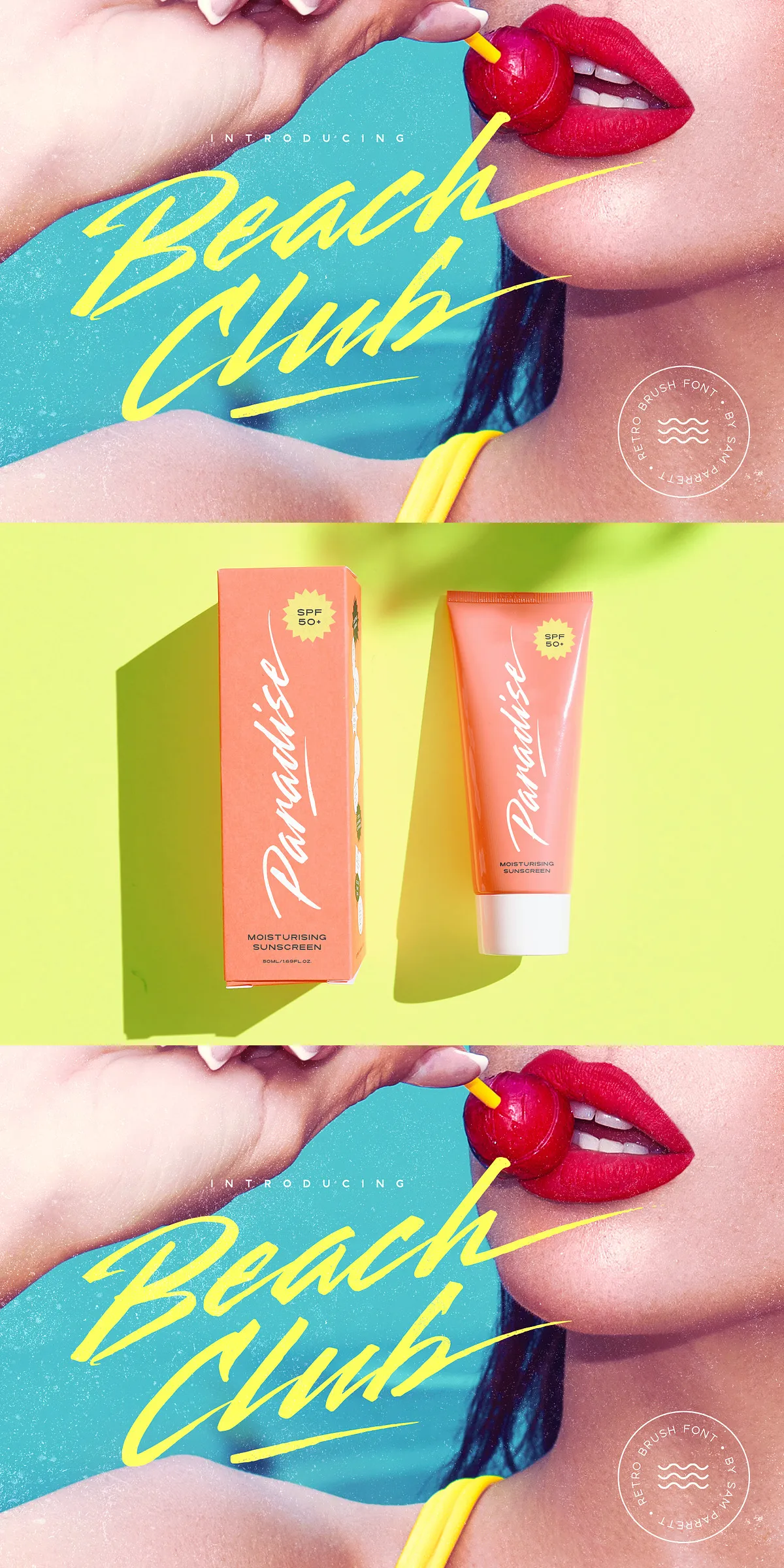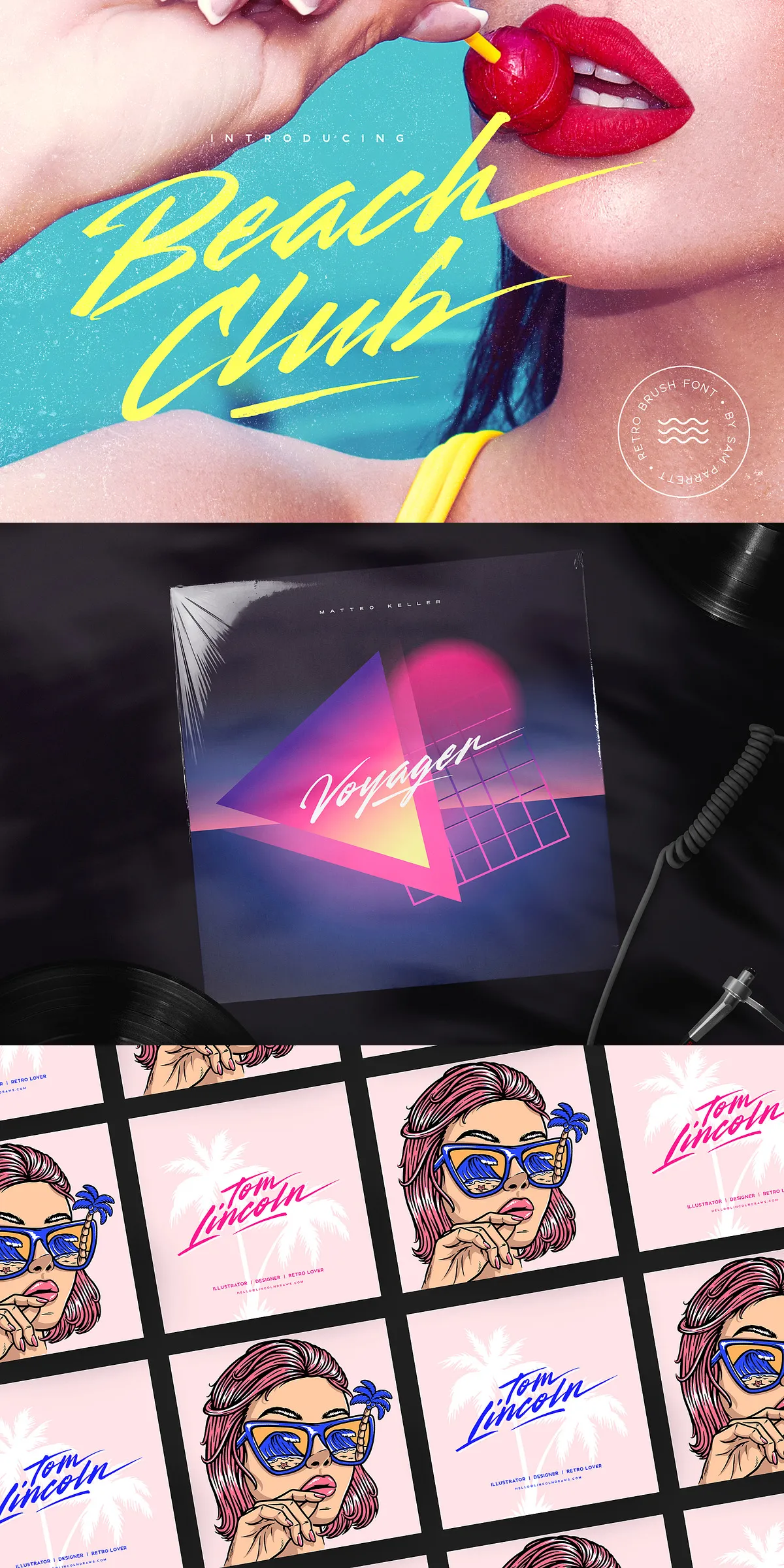
Feel the sun on your skin, hear the waves, and taste the salt in the air — Beach Club Script Font brings the electrifying energy of coastal leisure straight to your digital canvas. This bold, retro-fueled handwritten script isn’t just a font — it’s a full sensory escape to a golden era of neon signs, beachside parties, and carefree days. Whether you’re designing a signature logo, crafting vibrant product packaging, or reviving 80s/90s aesthetics, Beach Club Script delivers instant visual punch with authentic flair.
Unleash the Power of Retro Expression
Designed for creatives who dare to stand out, Beach Club Script combines fluid brush strokes with dynamic swash flourishes and high-impact letterforms. It’s not just readable — it’s theatrical. Each character pulses with life, making your text feel alive, confident, and full of personality. Use it for display text, headlines, branding, or social media visuals, and watch your audience instantly connect with its fun, nostalgic energy.
Two Fonts. Infinite Possibilities.
- Beach Club Script – The core font featuring full uppercase and lowercase letters, numerals, punctuation, and spacing designed for high readability with character. Ideal for bold slogans, titles, and eye-catching graphics.
- Beach Club Swash – A dynamic companion font that turns any letter into a show-stopping flourish. Type any letter from a–z, and one of 21 unique swash alternatives is automatically generated. Use it to underline, frame, or accentuate your text with effortless style and flair.
- End characters – 24 beautifully crafted swashed endings for lowercase letters. Place them at the end of your words to add stylish, polished conclusions to your typography.
Designed for Global Creatives, Built for Real-World Use
Beach Club Script isn’t limited to English-only design. It supports a broad range of languages, making it ideal for international branding and cross-cultural projects. Fully multilingual support includes:
This means your design speaks to a wider world — without compromising on style or authenticity. Whether you’re crafting a beach resort brochure in Barcelona or a retro fashion line in Tokyo, Beach Club Script delivers cultural fluency with visual impact.
Perfect for Every Creative Project
From branding to social media, from packaging to posters, Beach Club Script fits every bold application:
- Brand logos & signatures – Make your business feel fun, friendly, and unforgettable.
- Product packaging – Stand out on shelves with retro-inspired labels for drinks, snacks, candles, or cosmetics.
- Event invitations & posters – Design beach parties, summer festivals, or 80s-themed nights with maximum flair.
- Social media graphics & digital ads – Grab attention instantly with bold, playful text that pops on Instagram, TikTok, or Pinterest.
- Merchandise & apparel – Print on t-shirts, tote bags, mugs, and stickers — every piece becomes a wearable summer memory.